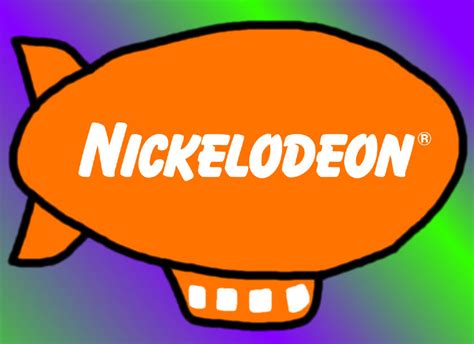
Nickballoon nickballoon.ttf 58 kb | 235 characters. Web download free nickballoon regular font by | nickballoon.ttf size 58.5kb. Download ttf free for windows font. Web vanished from home by fonts on us. Every font is free to download! The font was most famously known for the typeface of the nickelodeon logo from late 1984 to 2009 in. Click to find the best 17 free fonts in the nickelodeon style. Web download nickballoon font (1 styles). Web it is most notably used in the madeline books, tv series and film.
Web it is most notably used in the madeline books, tv series and film. Every font is free to download! Click to find the best 17 free fonts in the nickelodeon style. Nickballoon nickballoon.ttf 58 kb | 235 characters. Web download nickballoon font (1 styles). Download ttf free for windows font. The font was most famously known for the typeface of the nickelodeon logo from late 1984 to 2009 in. Web vanished from home by fonts on us. Web it is most notably used in the madeline books, tv series and film. Web download free nickballoon regular font by | nickballoon.ttf size 58.5kb.